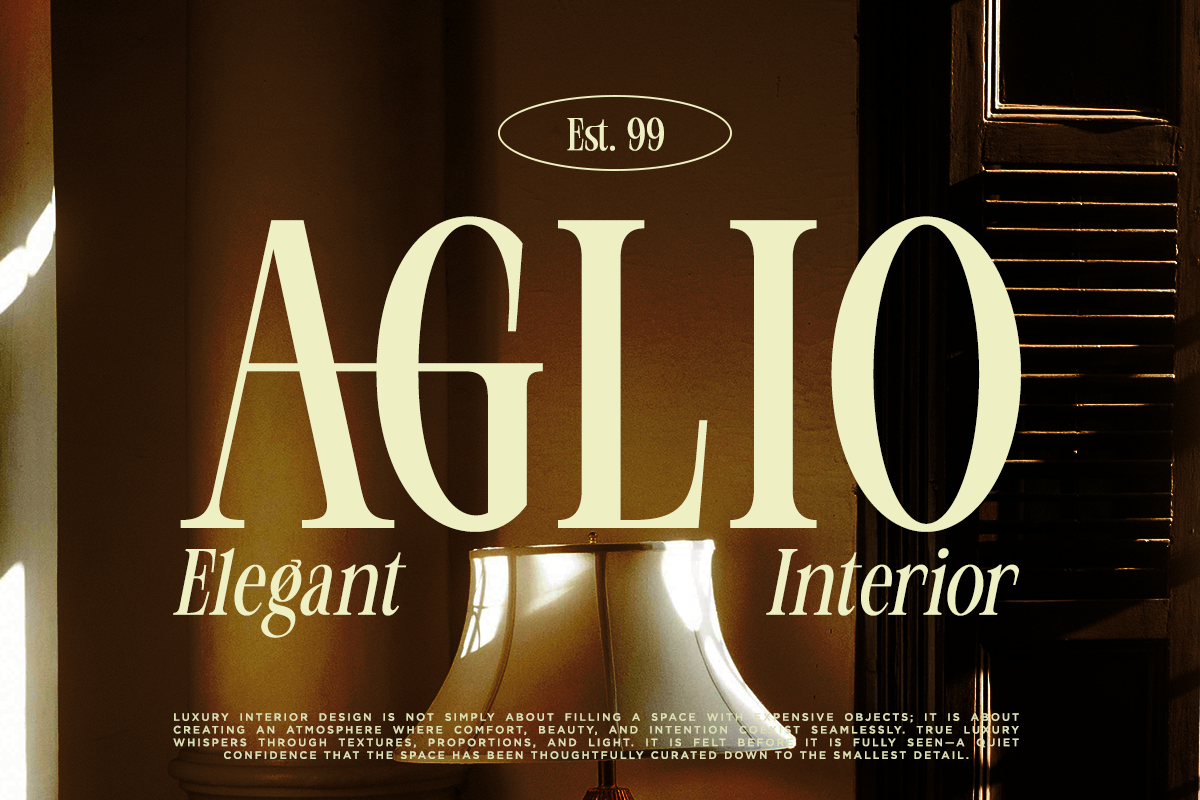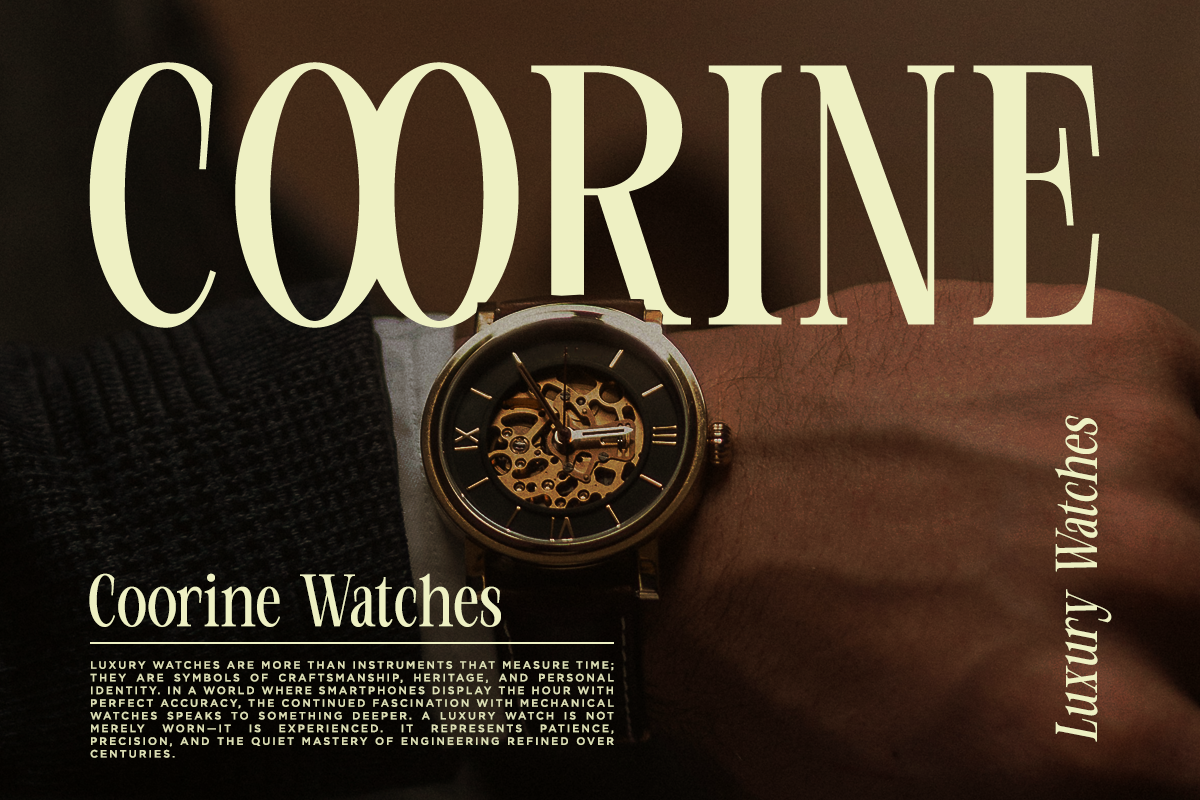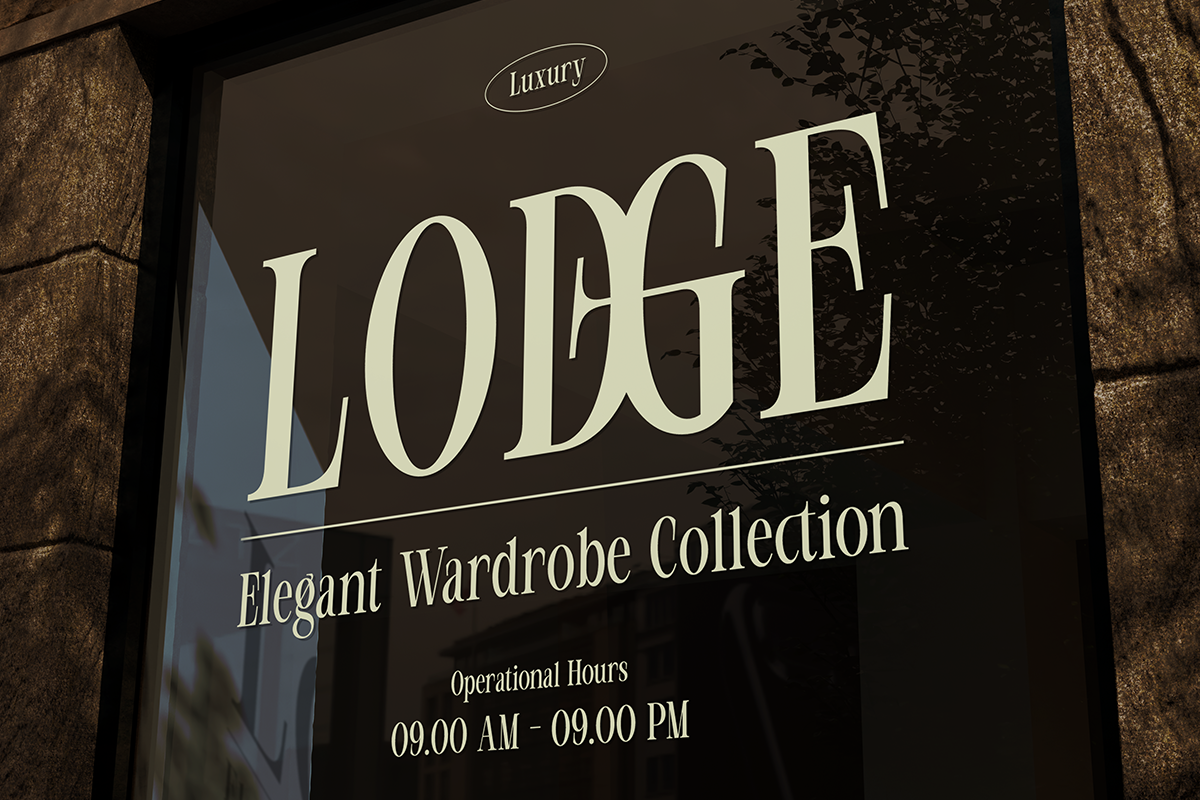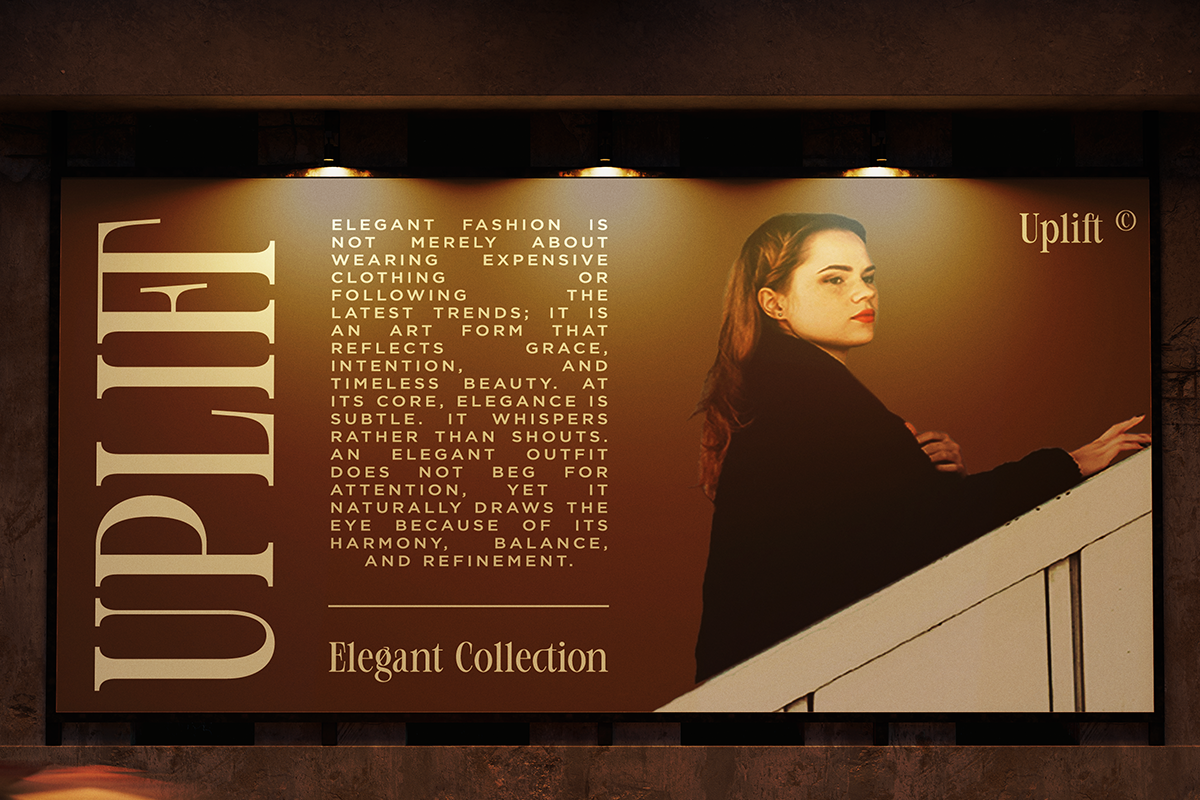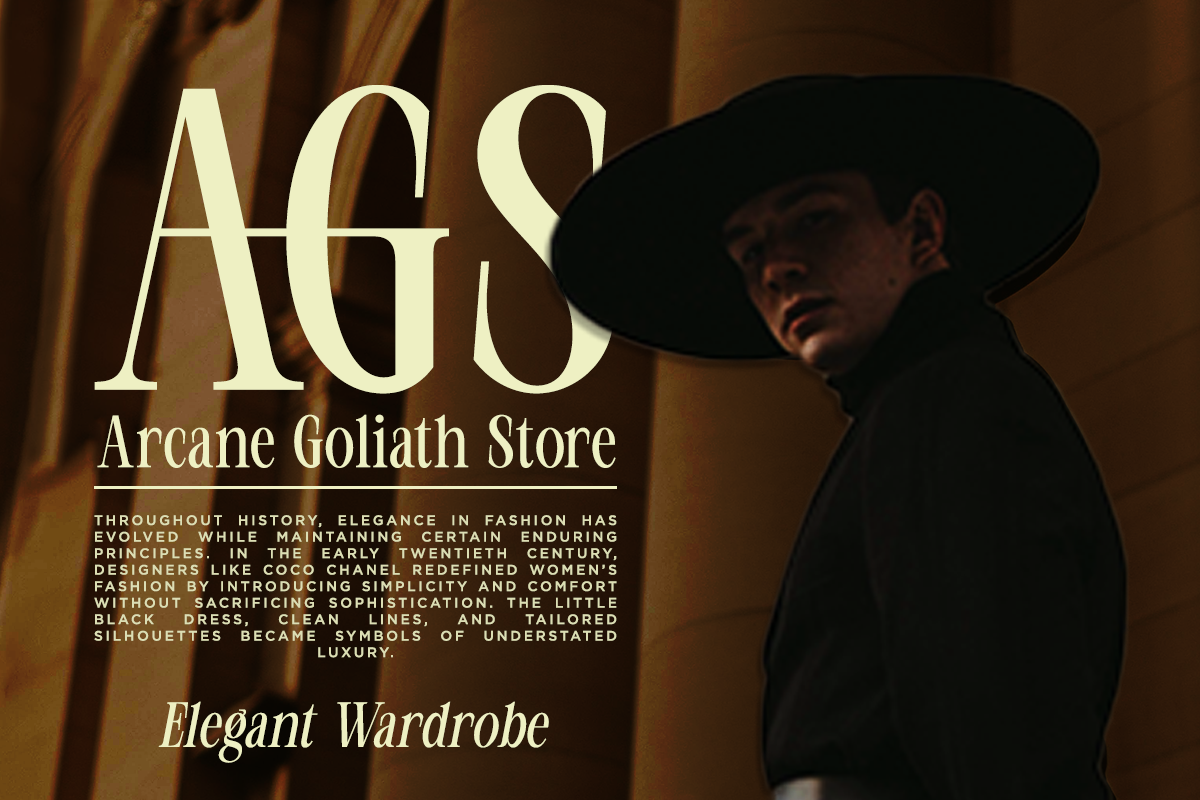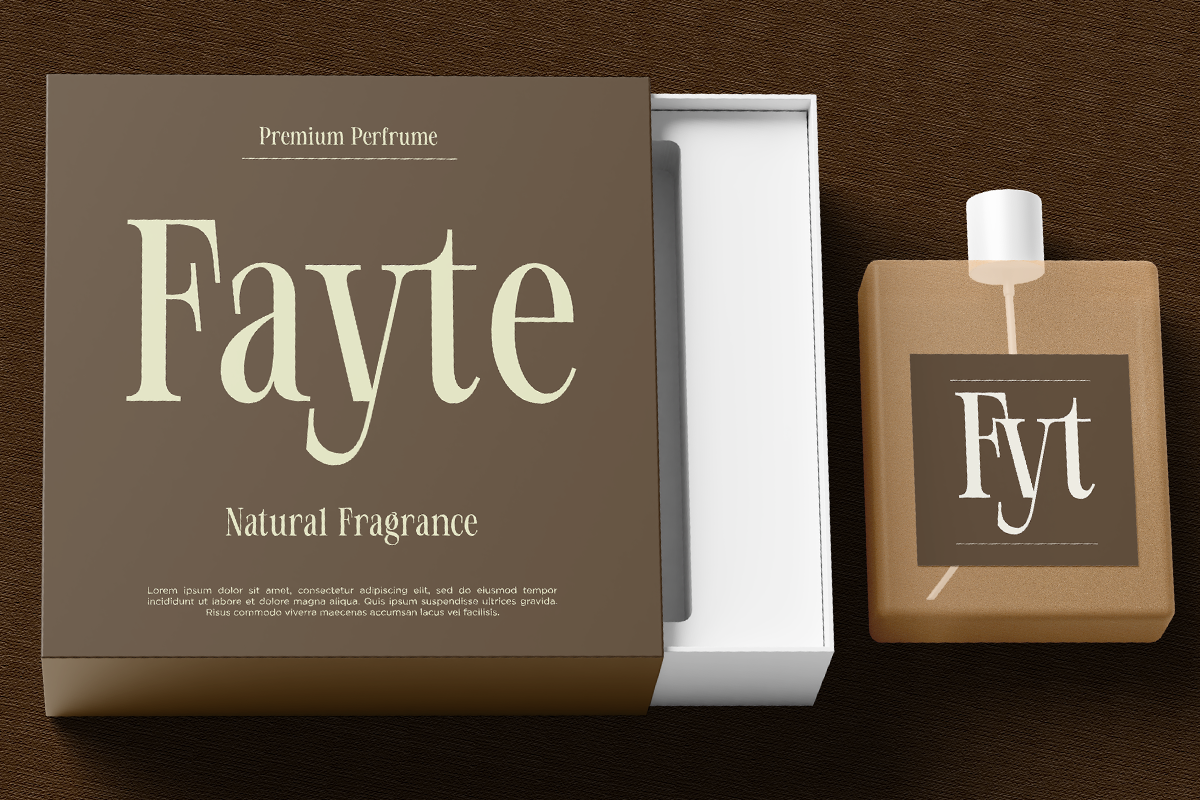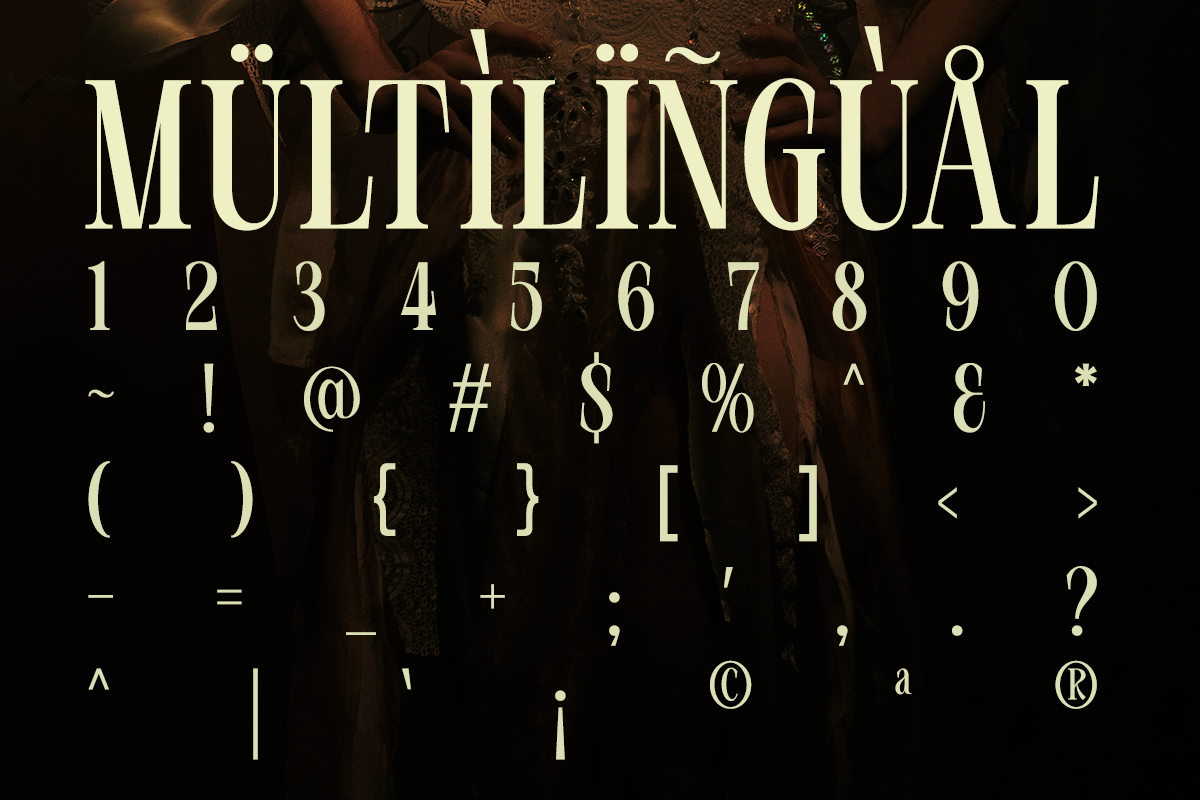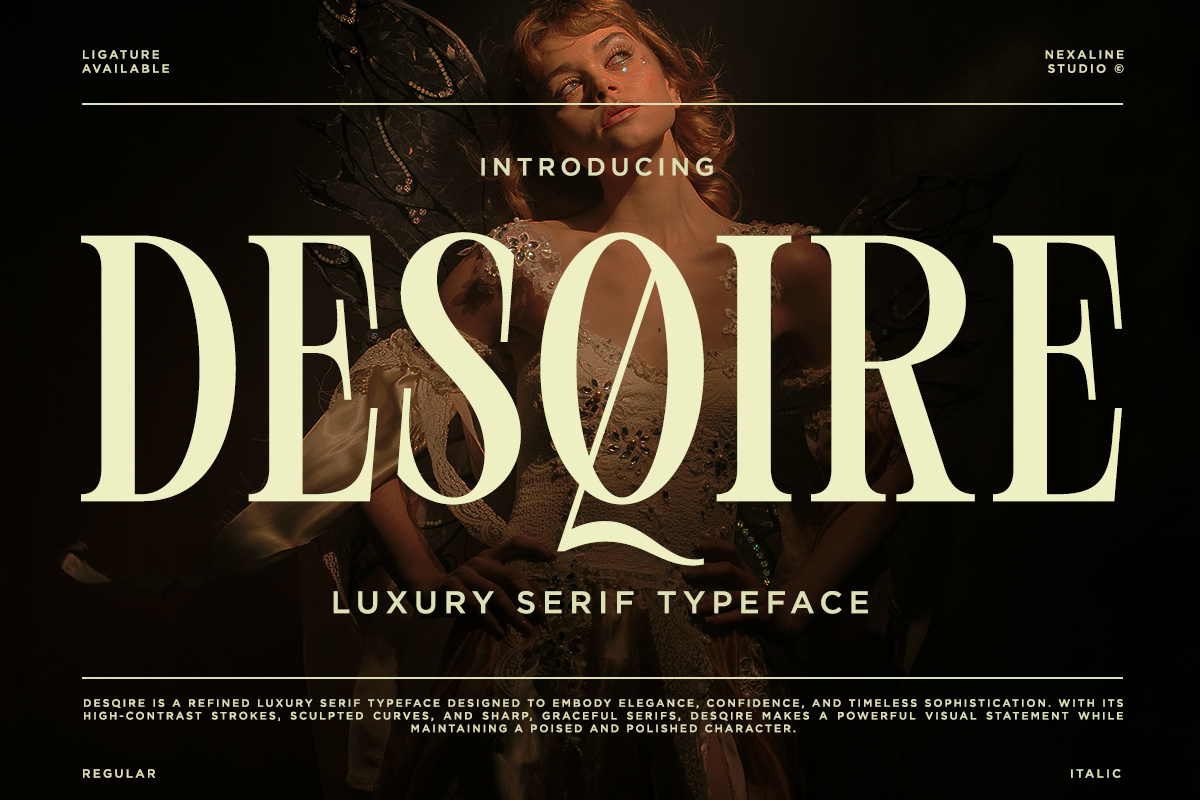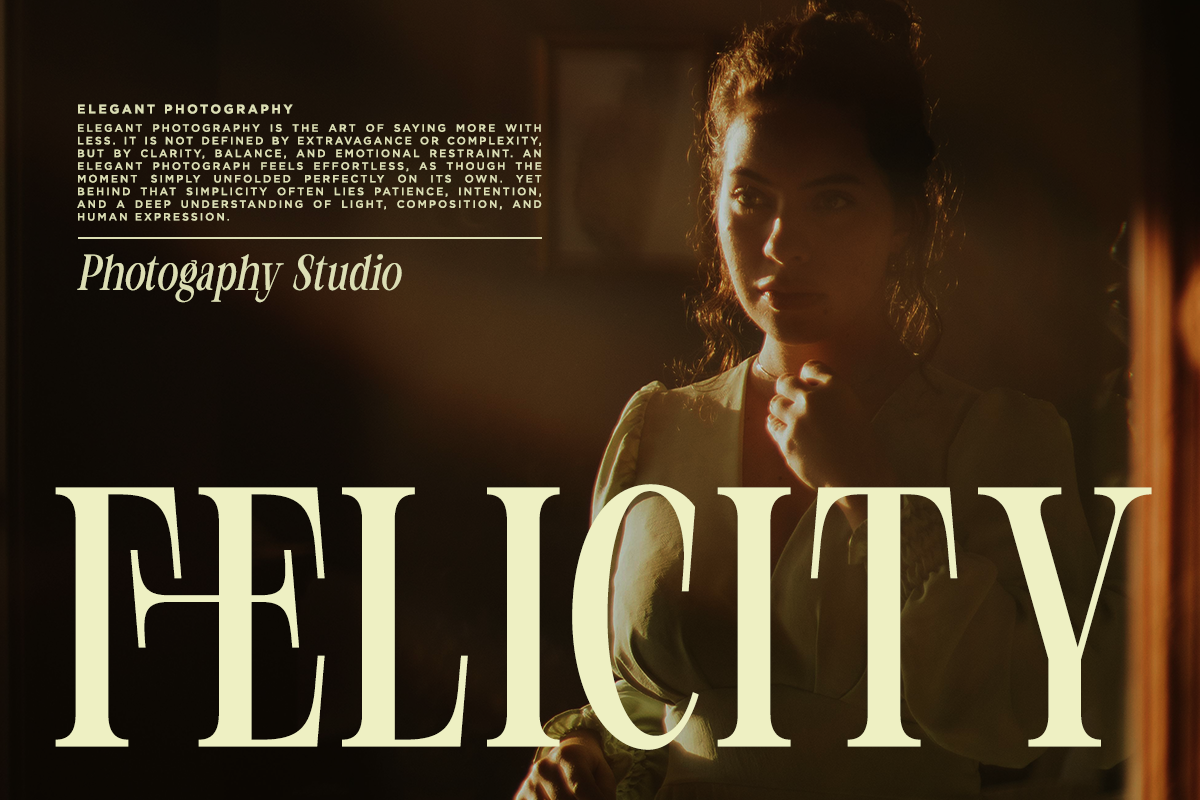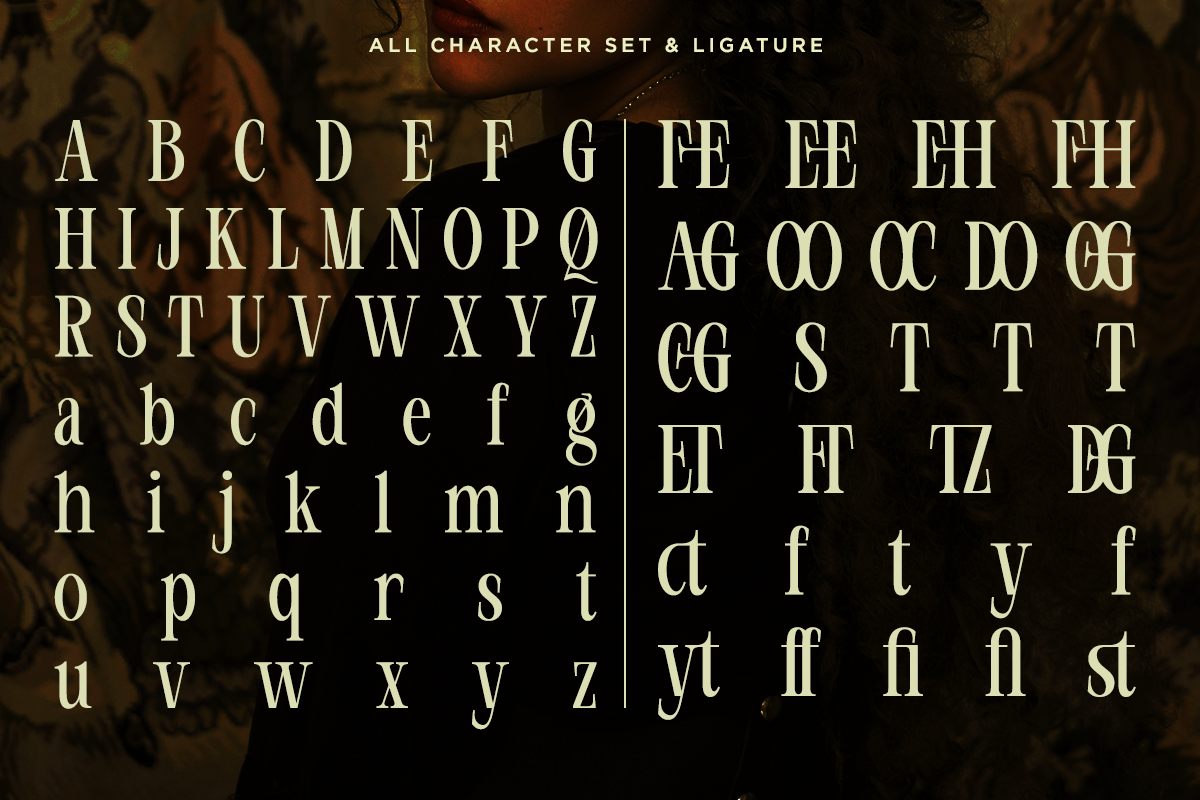
Desqire - Luxury Serif Typeface
Desqire is a refined luxury serif typeface designed to embody elegance, confidence, and timeless sophistication. It is designed to evoke a sense of high-end poise and polished character. With its high-contrast strokes, sculpted curves, and sharp, graceful serifs, it creates a stunning visual impact for premium designs.
Branding & Logo Design
Editorial & Magazine Layouts
Luxury Packaging & Labels
High-end Wedding Stationery
Beautiful Custom Ligatures